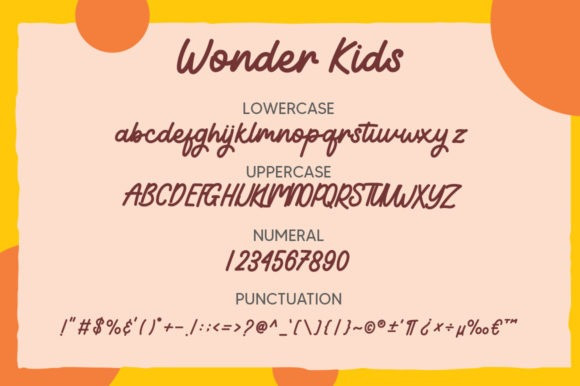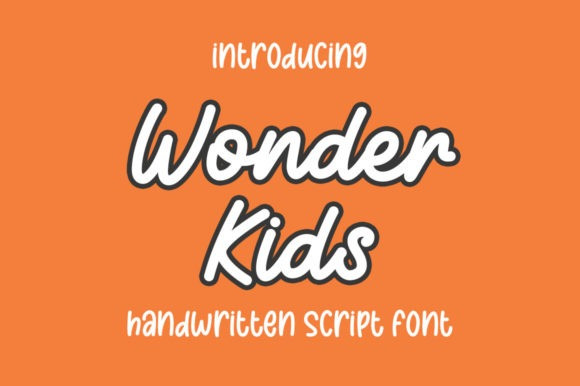
Wonder Kids Font
Wonder Kids Font is a dainty and flowing handwritten font. Sweet and delicate, this font will be ideal for writing wedding invitations, cards or any other design that may need a romantic, personalized touch!